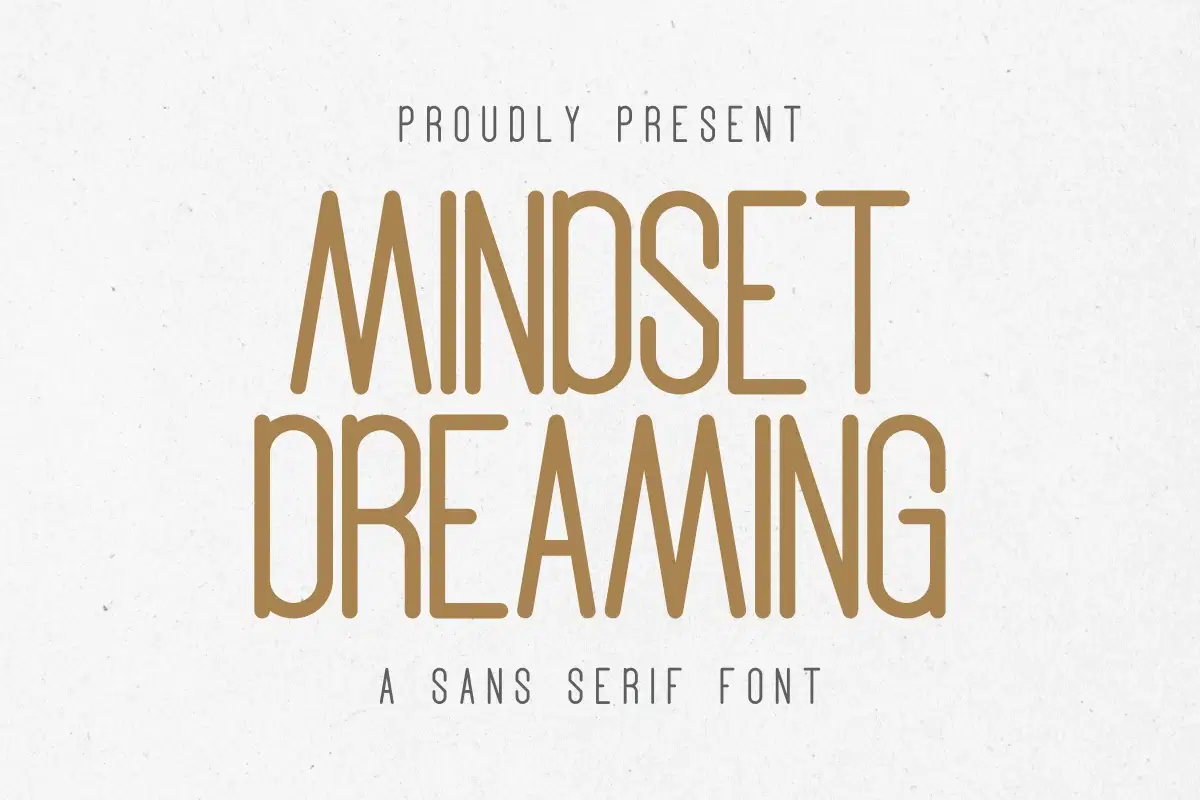
Mindset Dreaming is a minimalist sans-serif font designed for a clean and modern aesthetic. Its monoline style makes it perfect for various design projects, including greeting cards, wall art, book covers, and mugs.